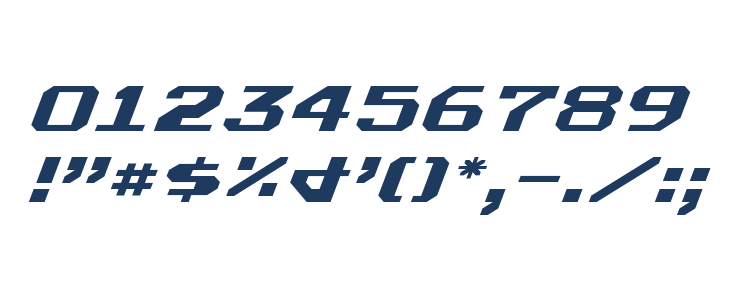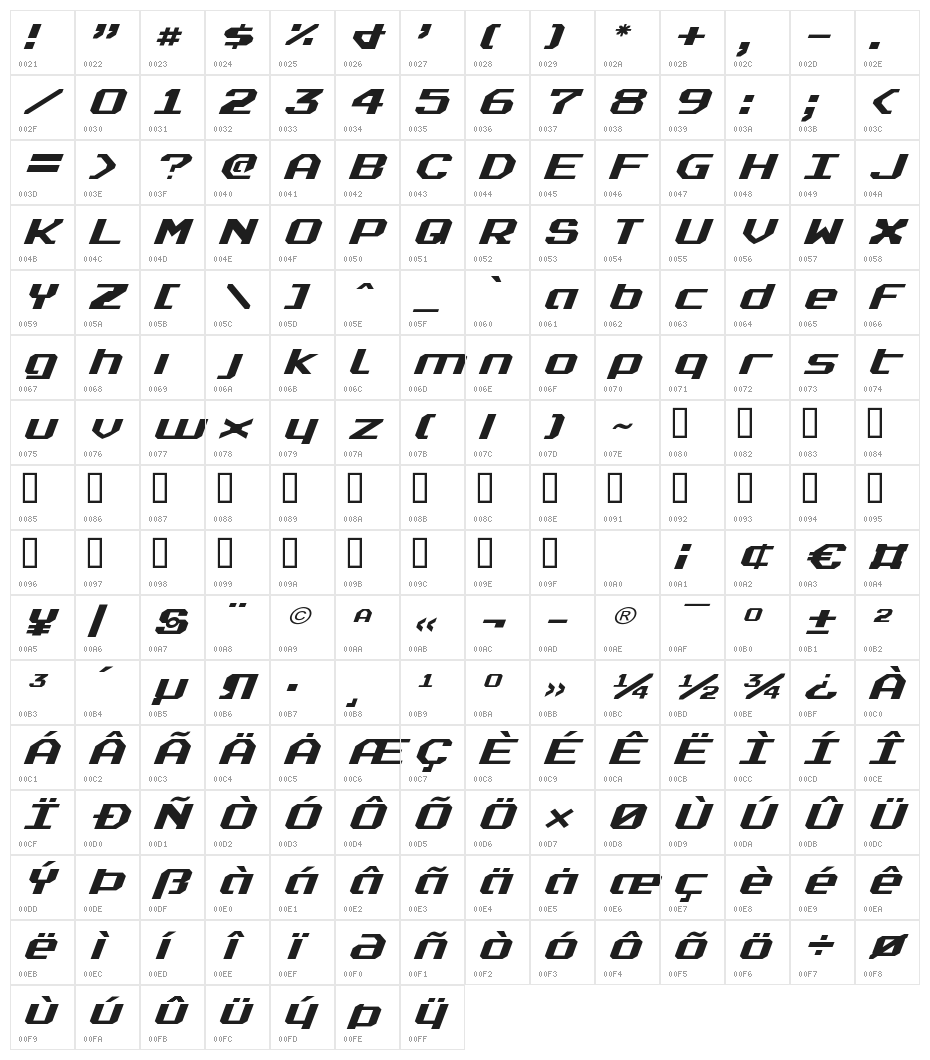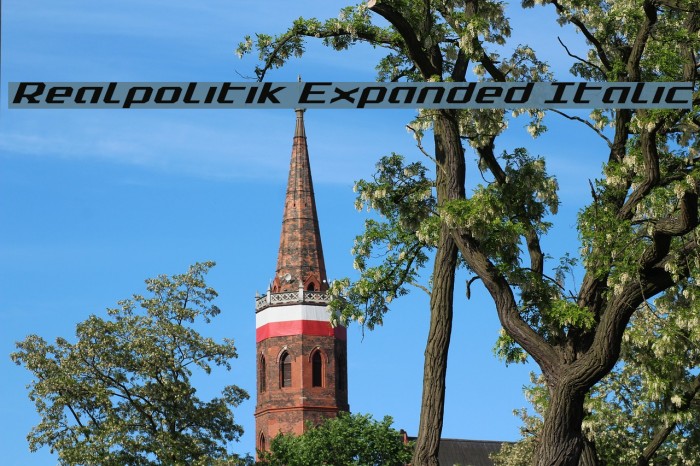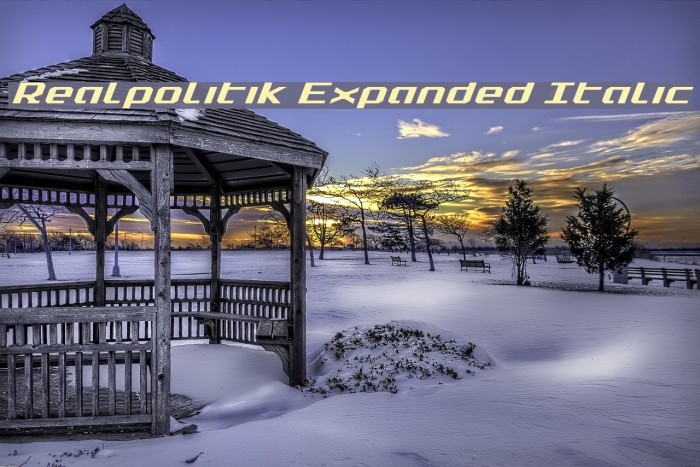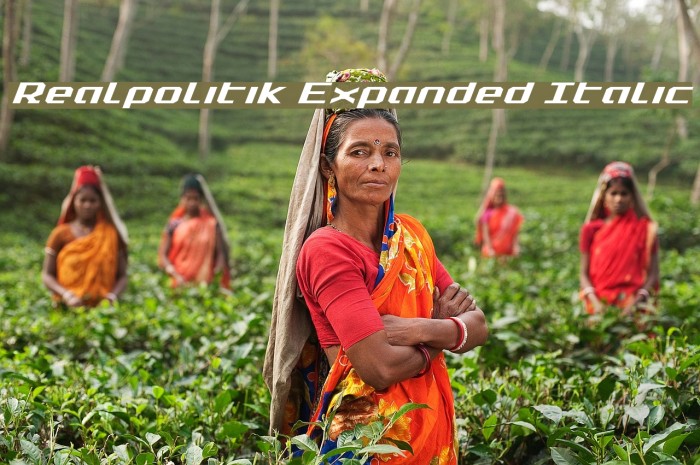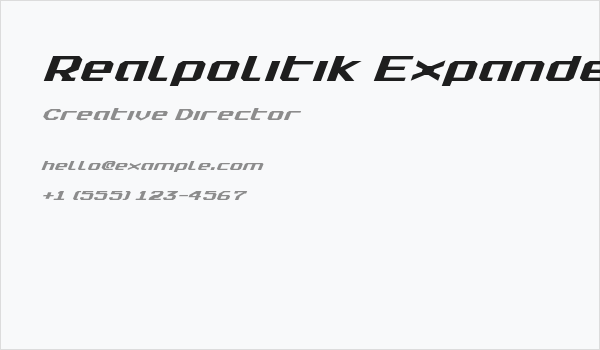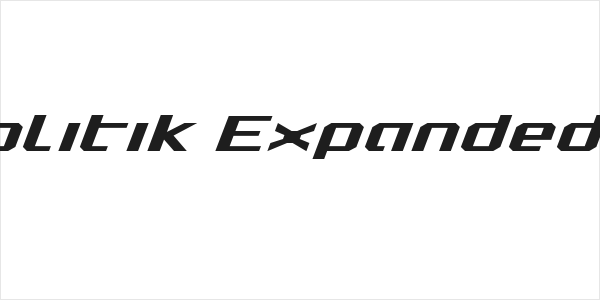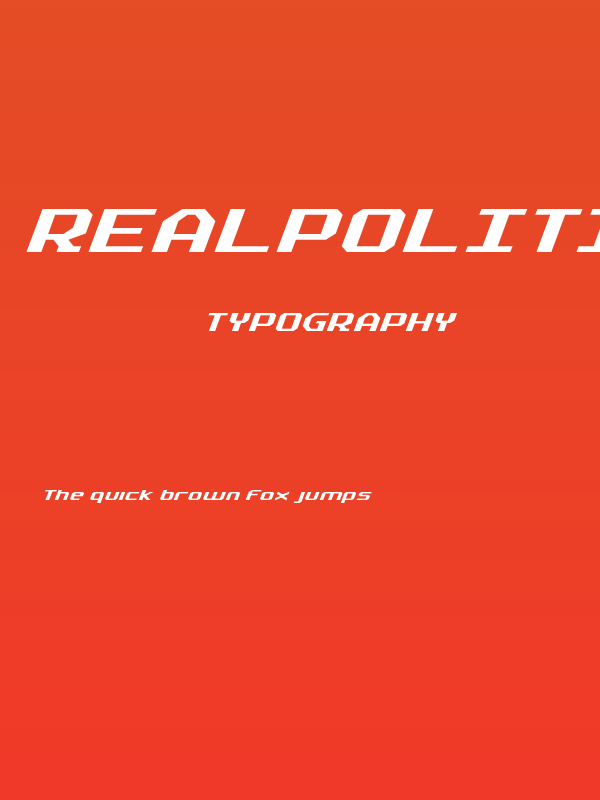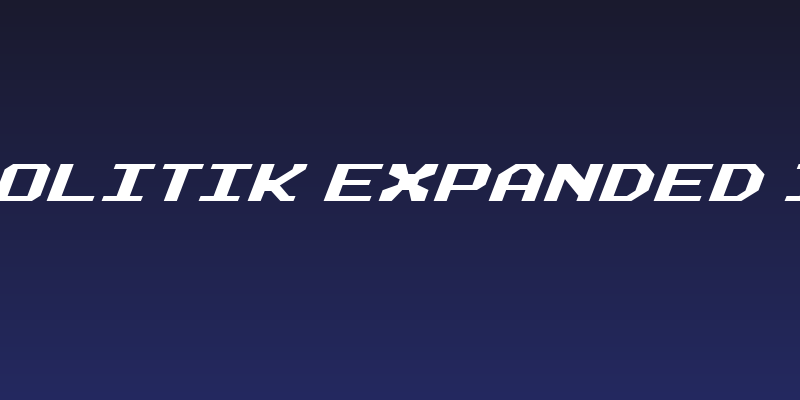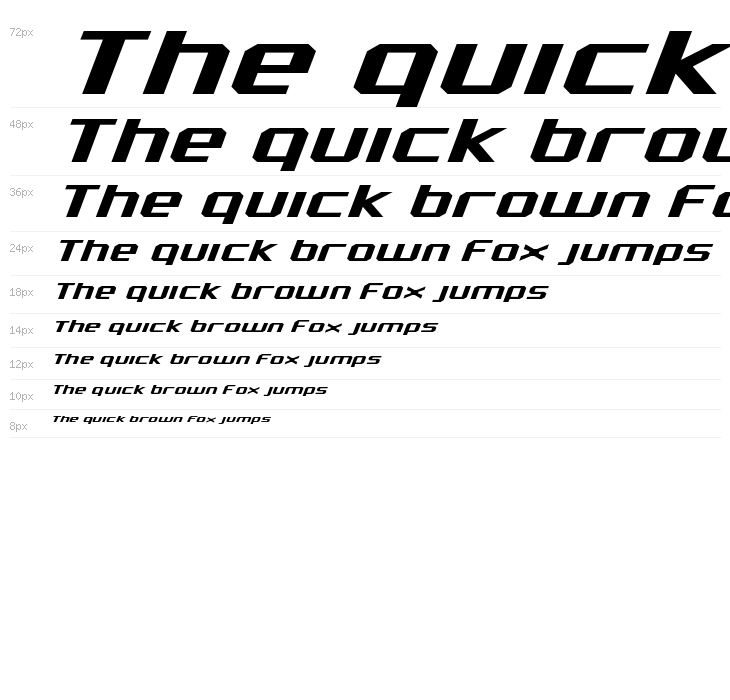
Realpolitik Expanded Italic Font
Realpolitik Expanded Italic Description
This font features a bold and dynamic style with an italic slant, giving it a sense of motion and energy. The characters are expanded, providing a wide stance that enhances readability while maintaining a modern aesthetic. The geometric shapes and sharp angles contribute to its futuristic and technical appearance. Each letter is distinct, with consistent stroke widths that offer a uniform look across the typeface. The numerals and special characters follow the same design principles, ensuring a cohesive visual experience. This font is well-suited for projects that require a strong and impactful presence.
Proposed ProjectsIdeal for branding, advertising, technology-related designs, and futuristic themes.